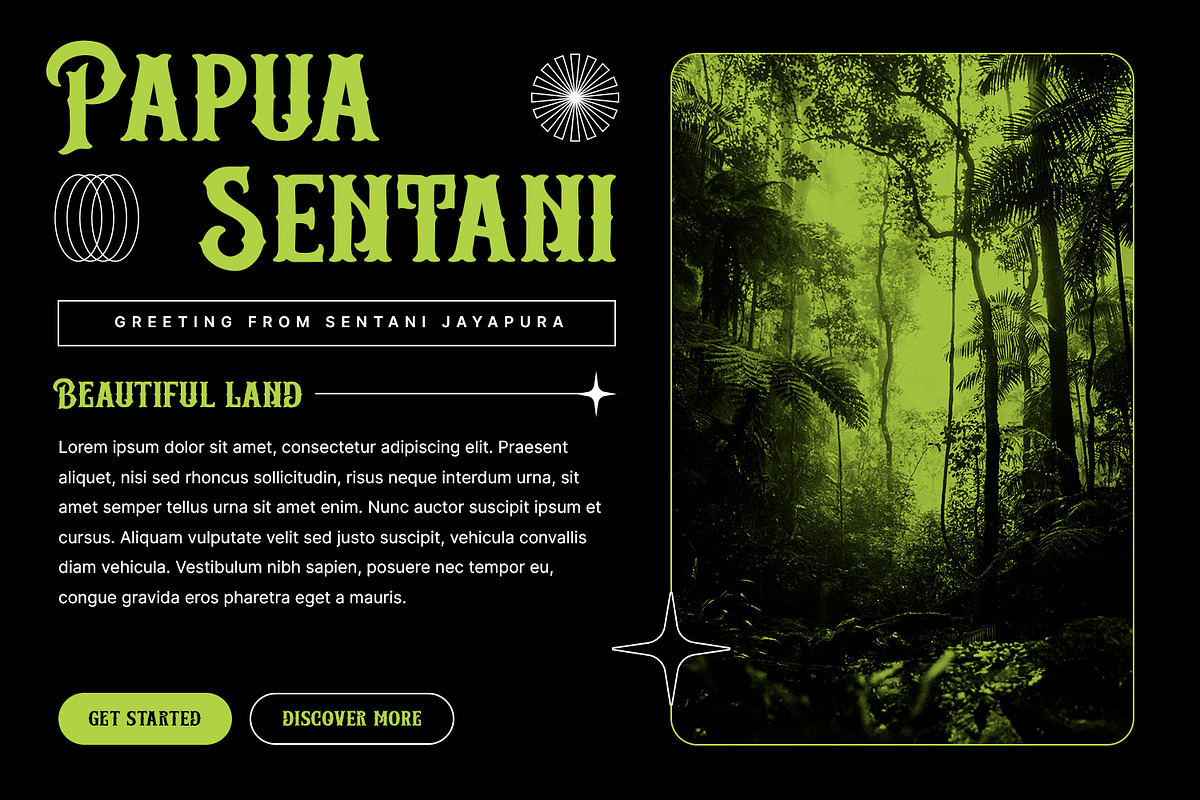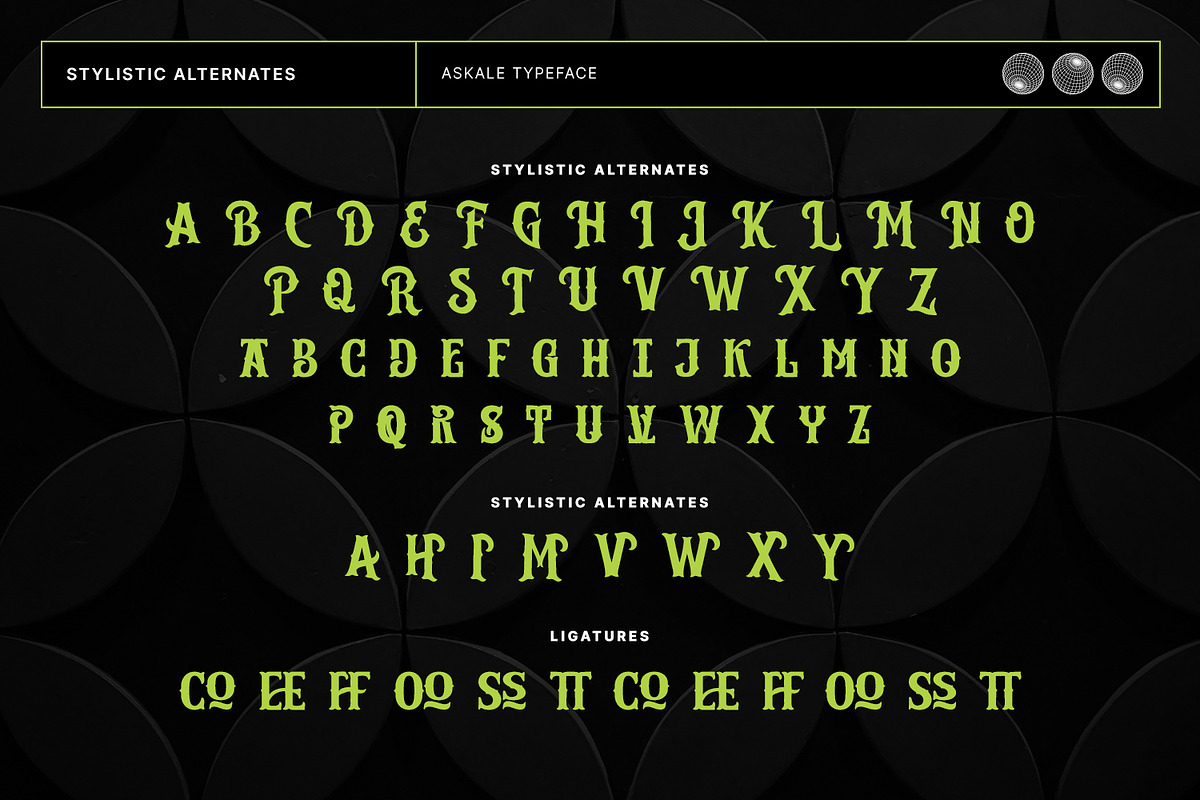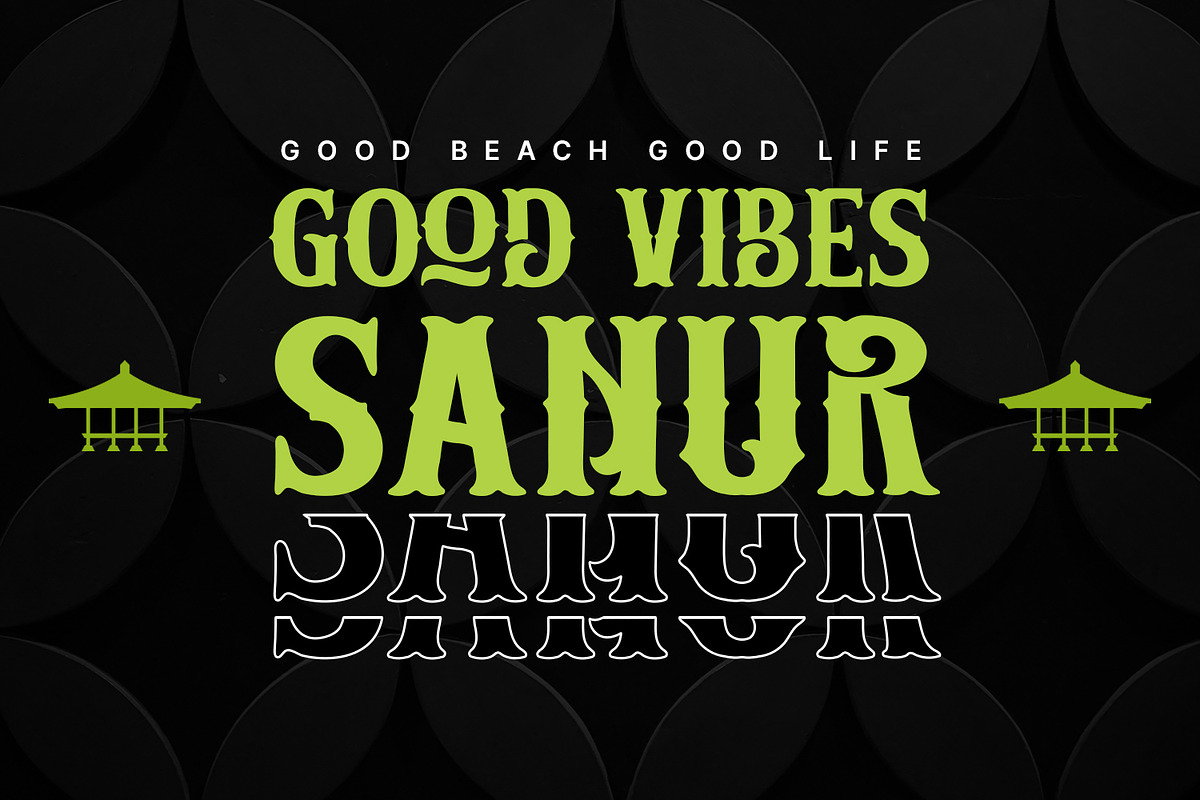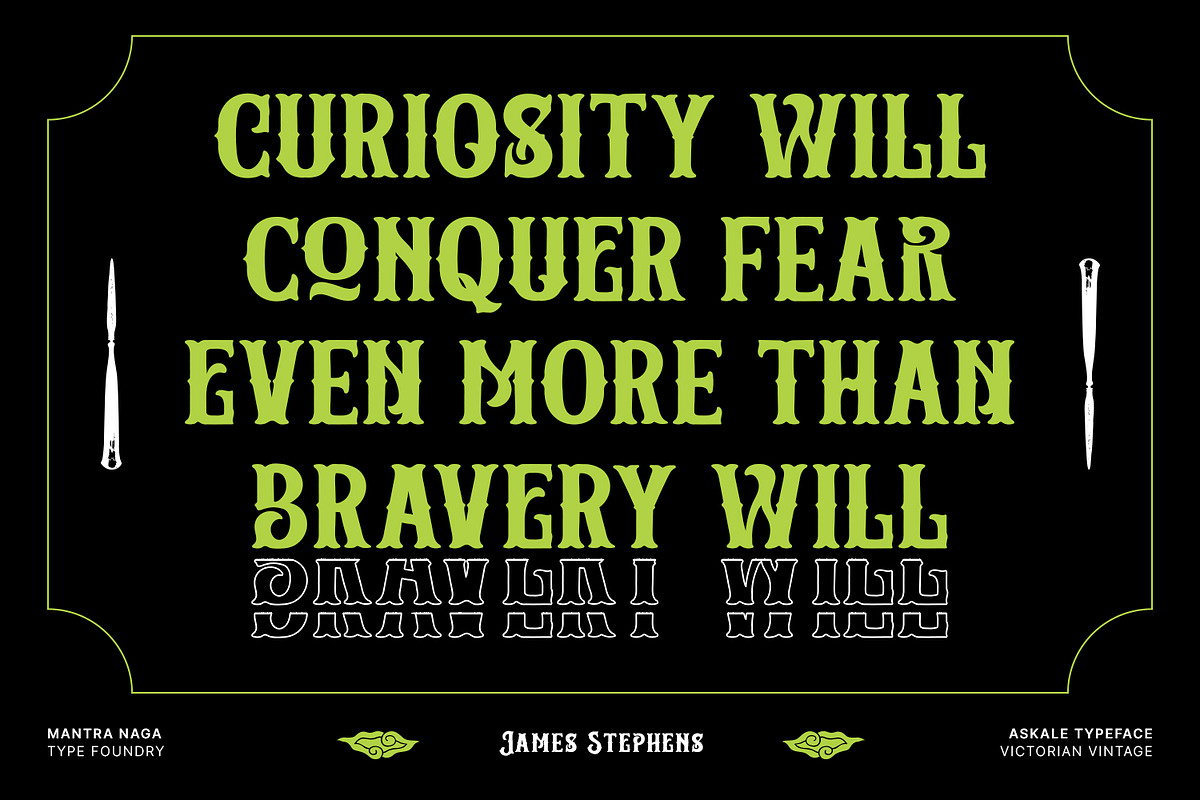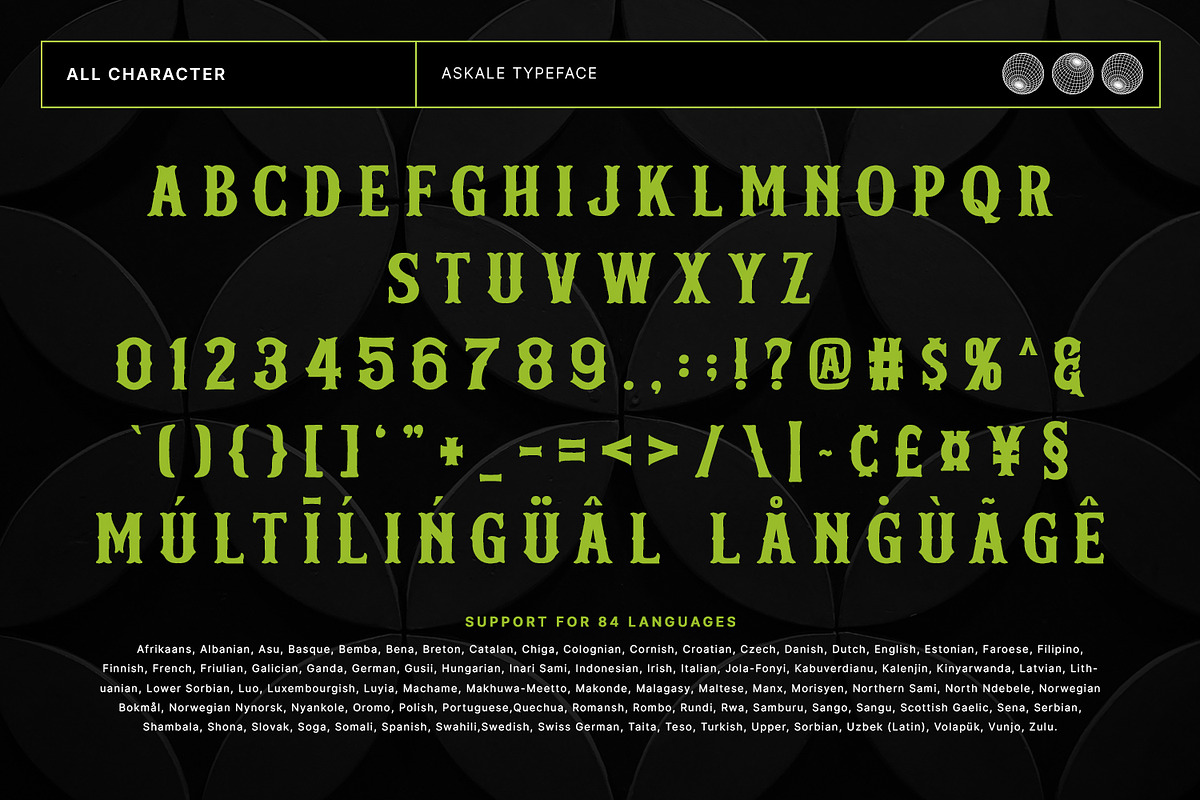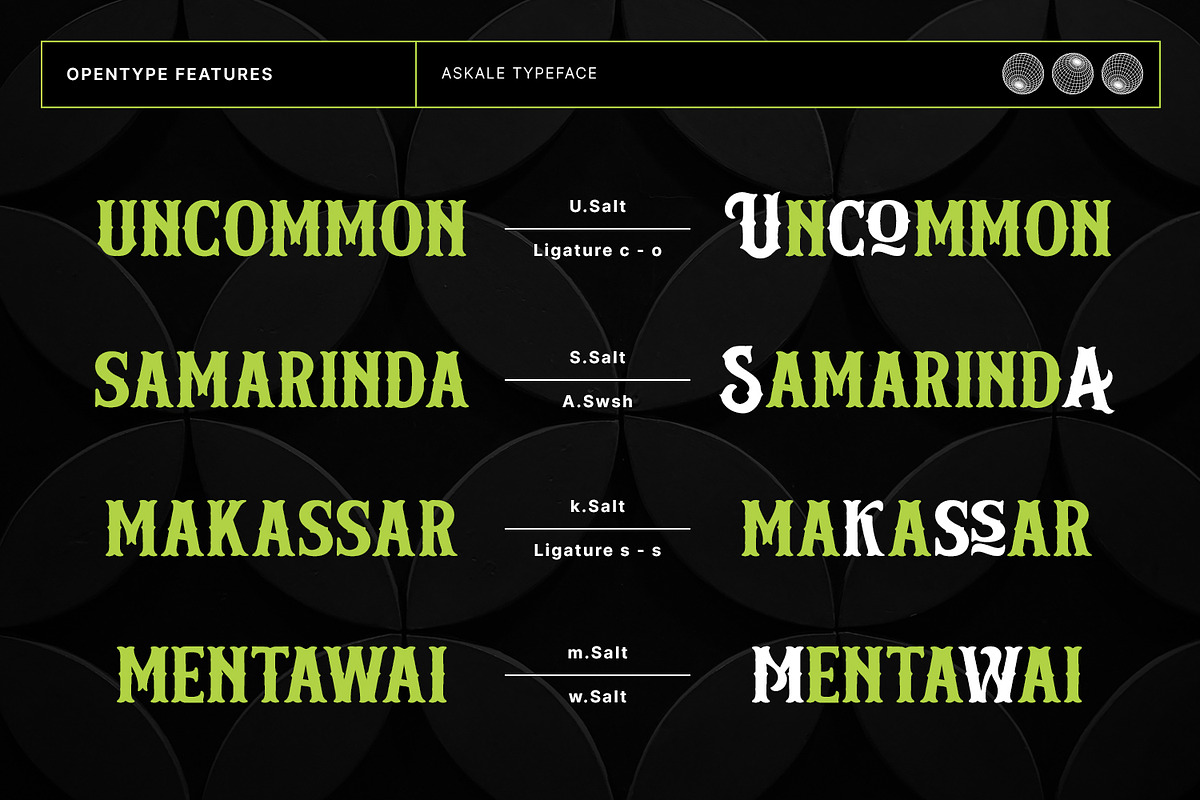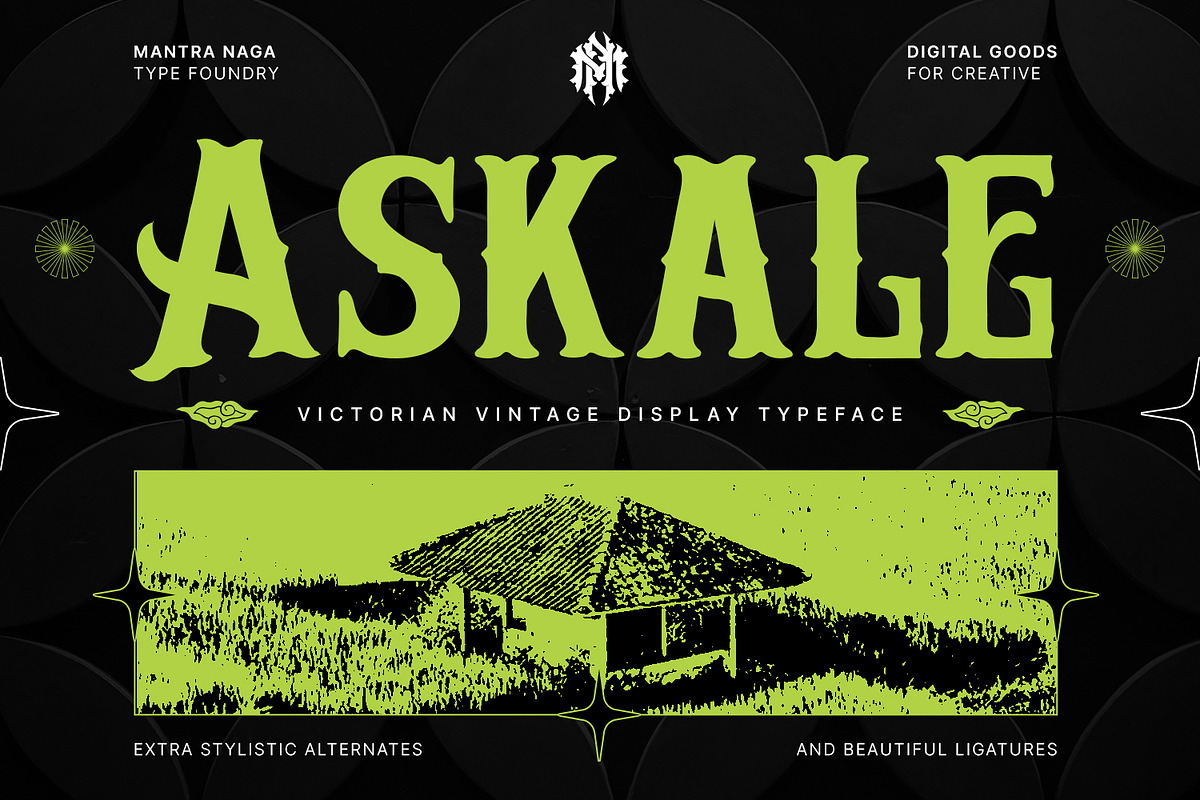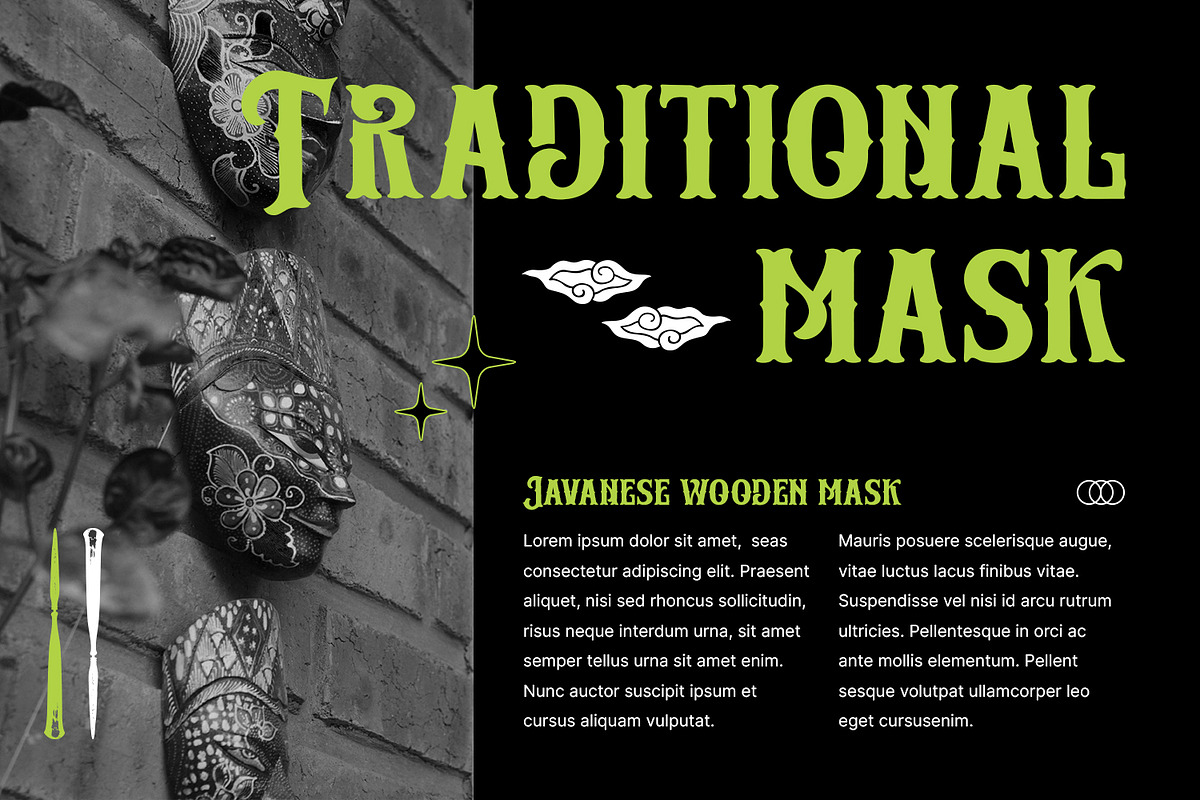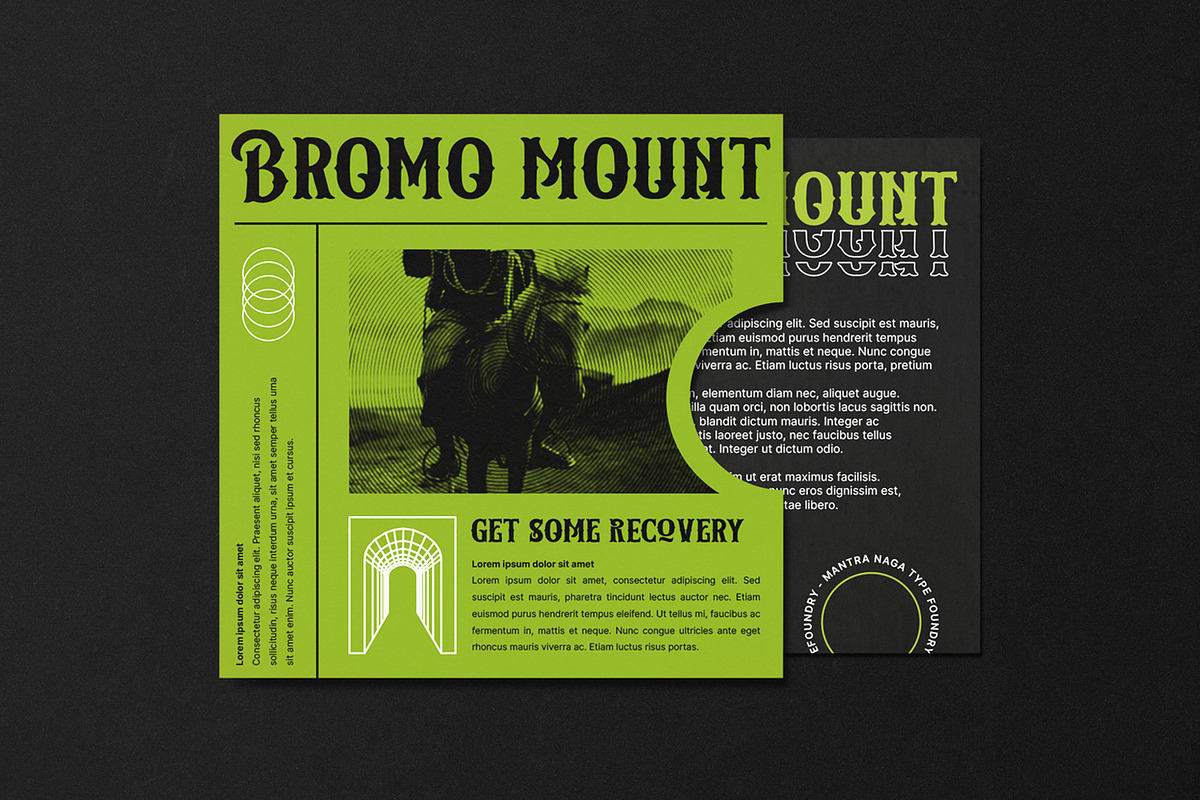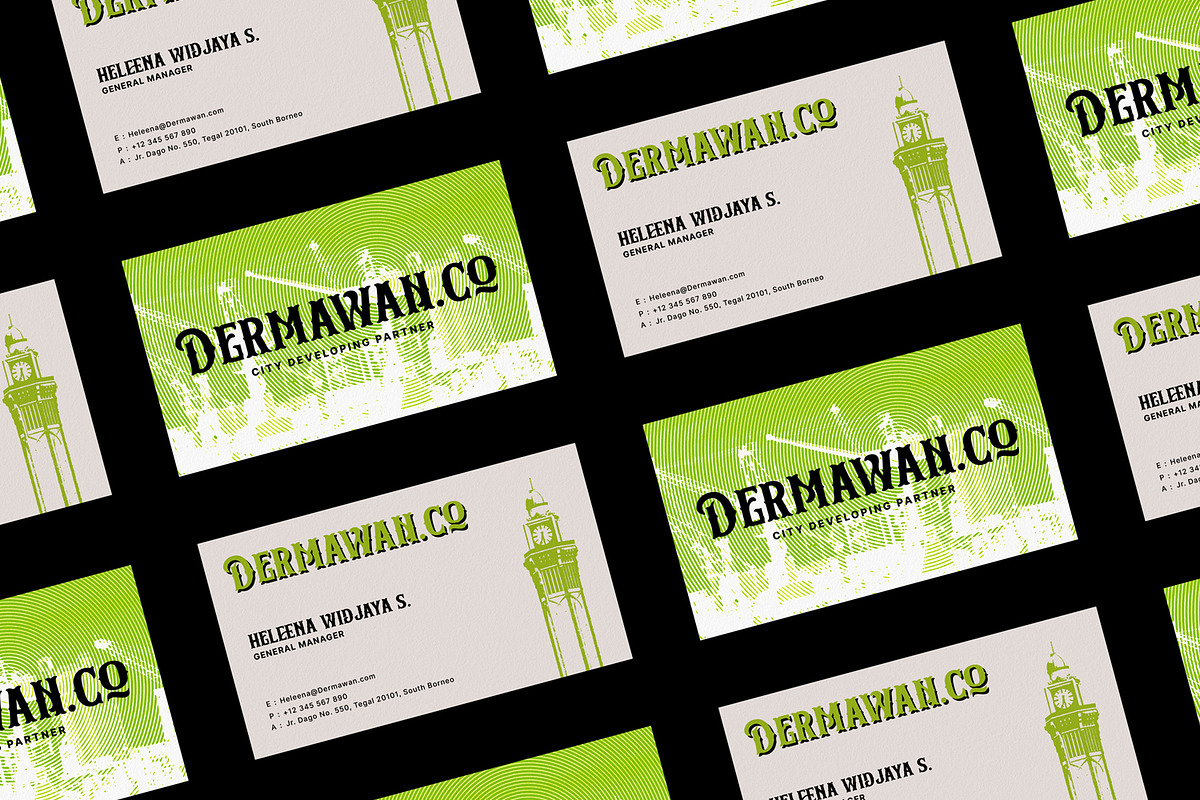
Askale - Victorian Vintage
Introducing, Askale - Victorian Vintage Display Font. This typeface has many alternatives with swashes that can make your lettering/logotype more attractive. Bold serifs and more swash on each character make this font even more unique.
This font is very suitable to be applied, especially to logos, and various other formal forms such as invitations, labels, logos, magazines, books, greeting / wedding cards, packaging, fashion, make up, stationery, novels, labels or any type. advertising purposes.
Feature:
- multilingual support
- ligature
- alternative
- swashes